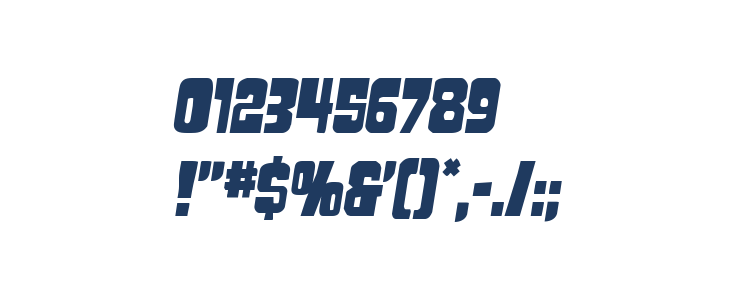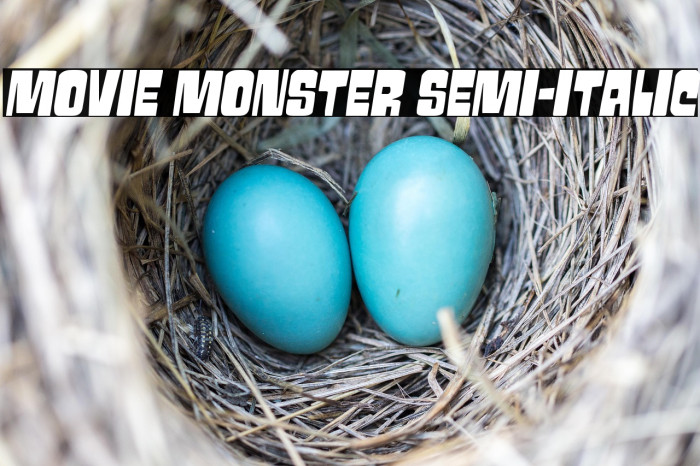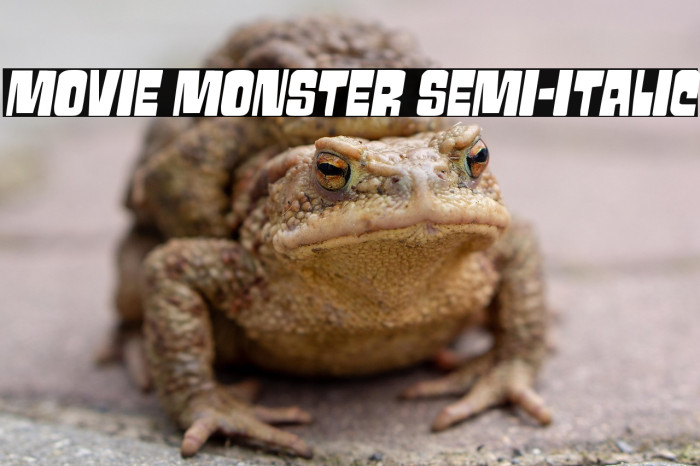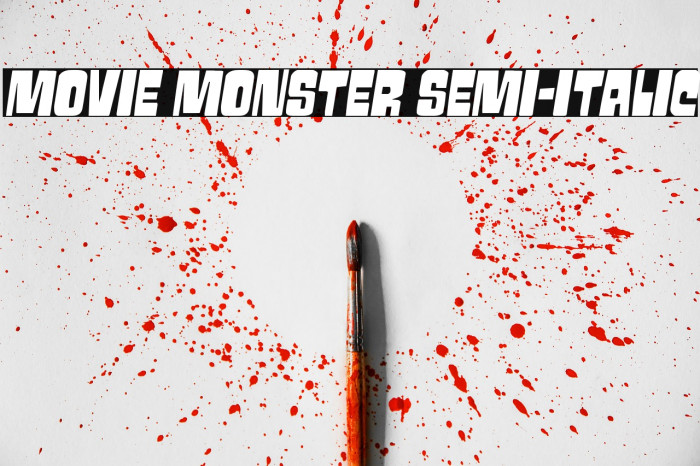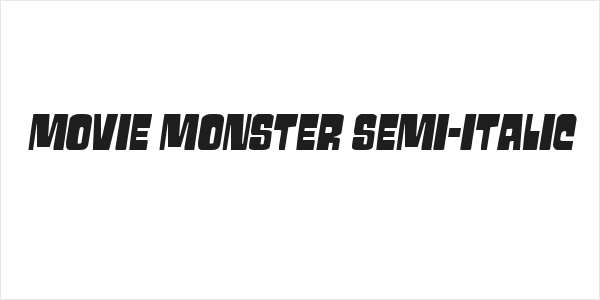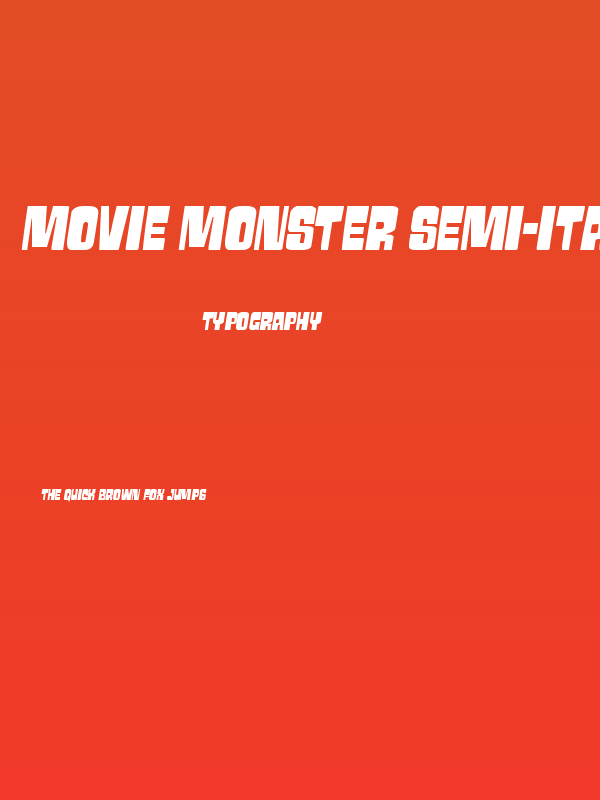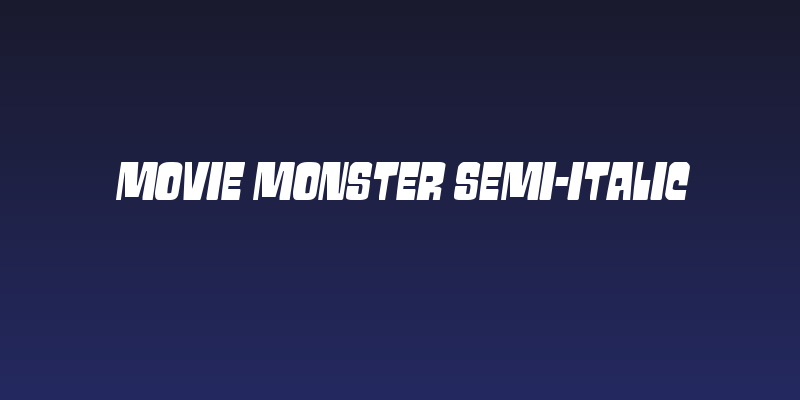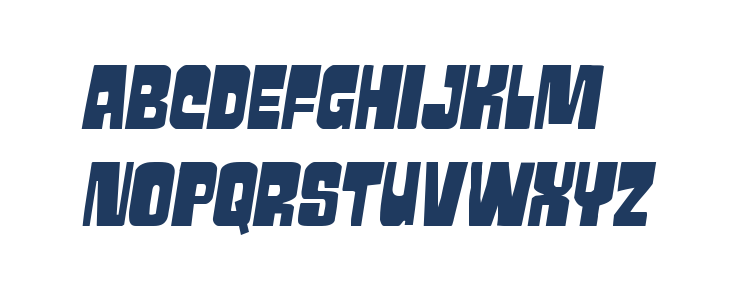
Movie Monster Semi-Italic Font
Movie Monster Semi-Italic Description
This font features a bold and dynamic style with a semi-italic slant, giving it a sense of movement and energy. The characters are blocky and robust, with sharp angles and a slightly condensed appearance. The uppercase letters are particularly striking, with a strong presence that commands attention. The numbers and special characters maintain the same boldness, ensuring consistency across all text elements. This font is designed to stand out, making it ideal for impactful headlines and titles.
| Proposed Projects | Ideal for movie posters, video game titles, branding for action or adventure themes, and any project needing a bold, attention-grabbing typeface. |